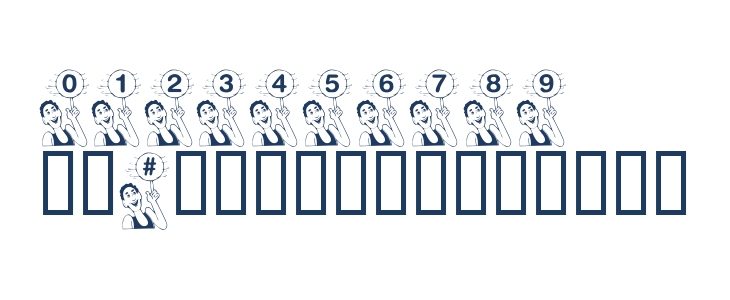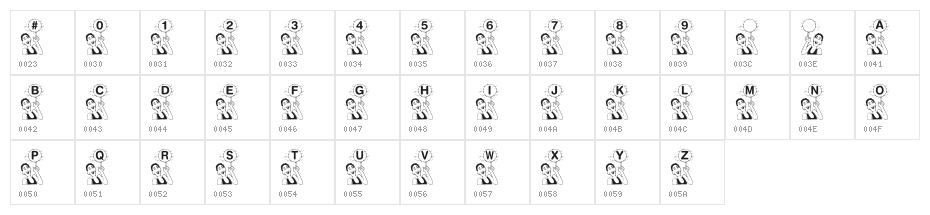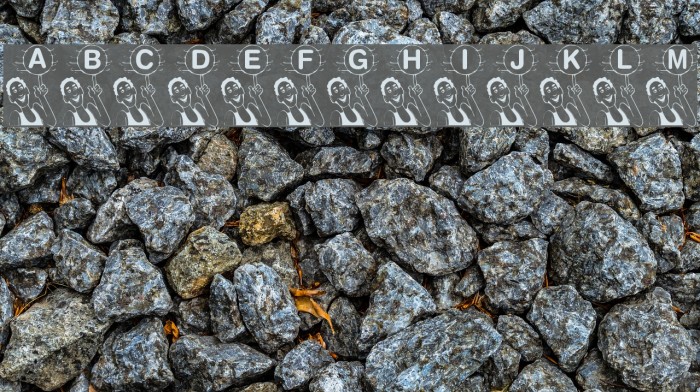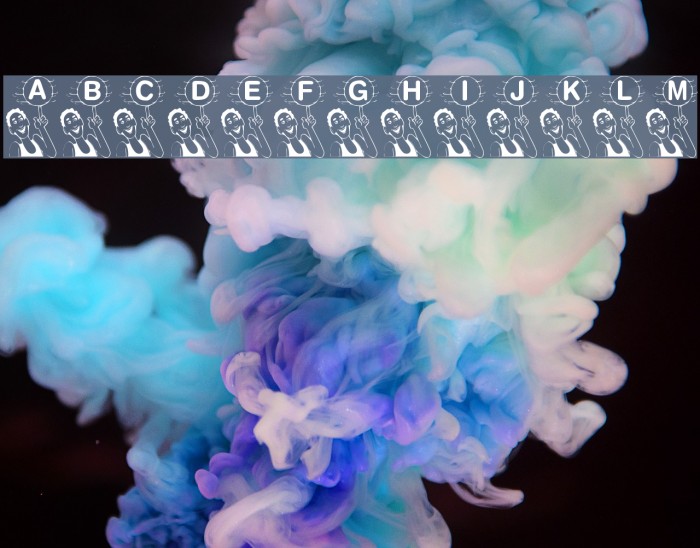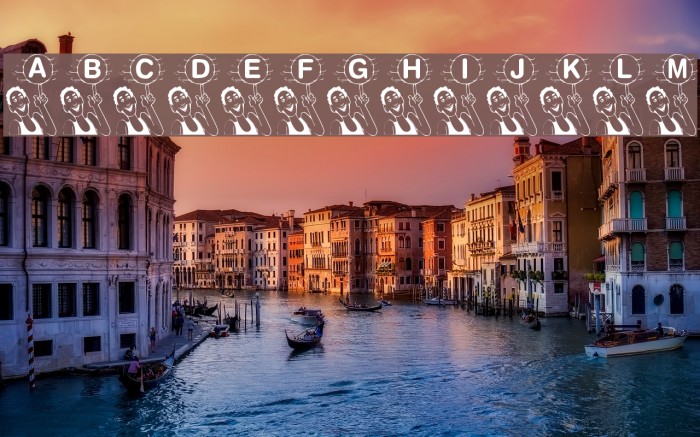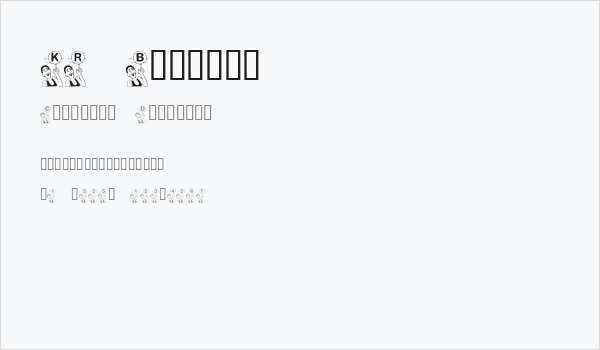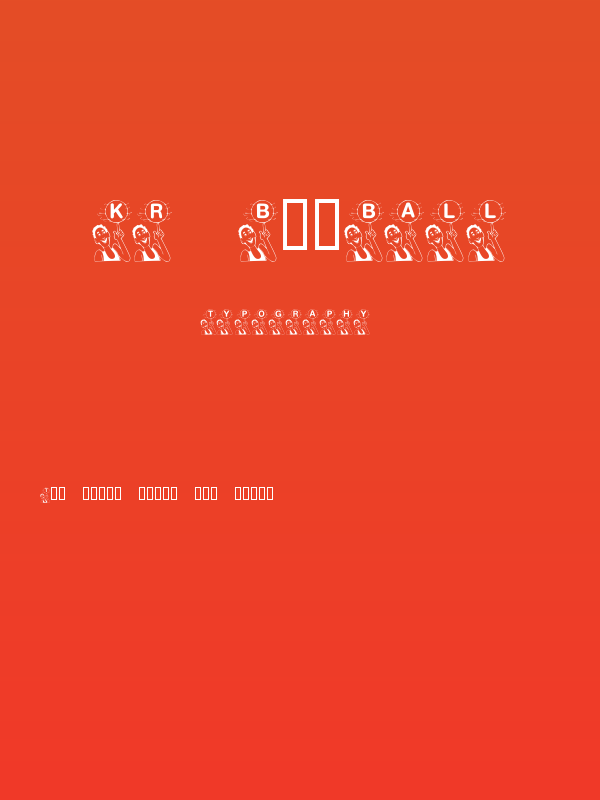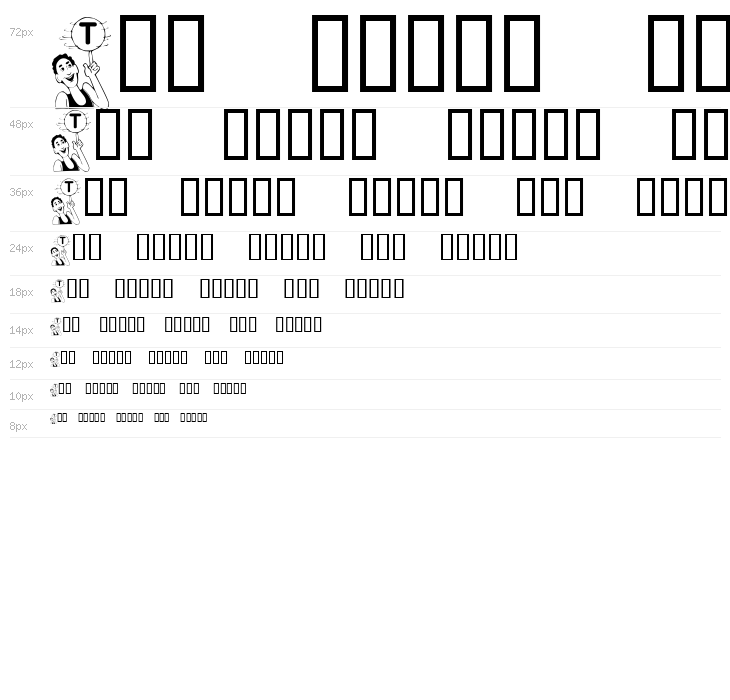
KR B'ball Font
KR B'ball Description
This font features a unique and playful design where each character is encapsulated within a basketball held by a cartoon figure. The letters and numbers are bold and clear, making them easily readable despite the decorative elements. The cartoon figure adds a dynamic and fun element, suggesting movement and energy. The font is highly decorative, making it suitable for projects that require a sporty or playful theme. The characters are evenly spaced, ensuring readability while maintaining the whimsical style.
| Overall Style | Playful, Sporty, Decorative |
| Use Case | Headlines, Posters, Branding |
| Proposed Projects | Ideal for sports-themed posters, children's event flyers, playful branding, and merchandise related to basketball or sports. |